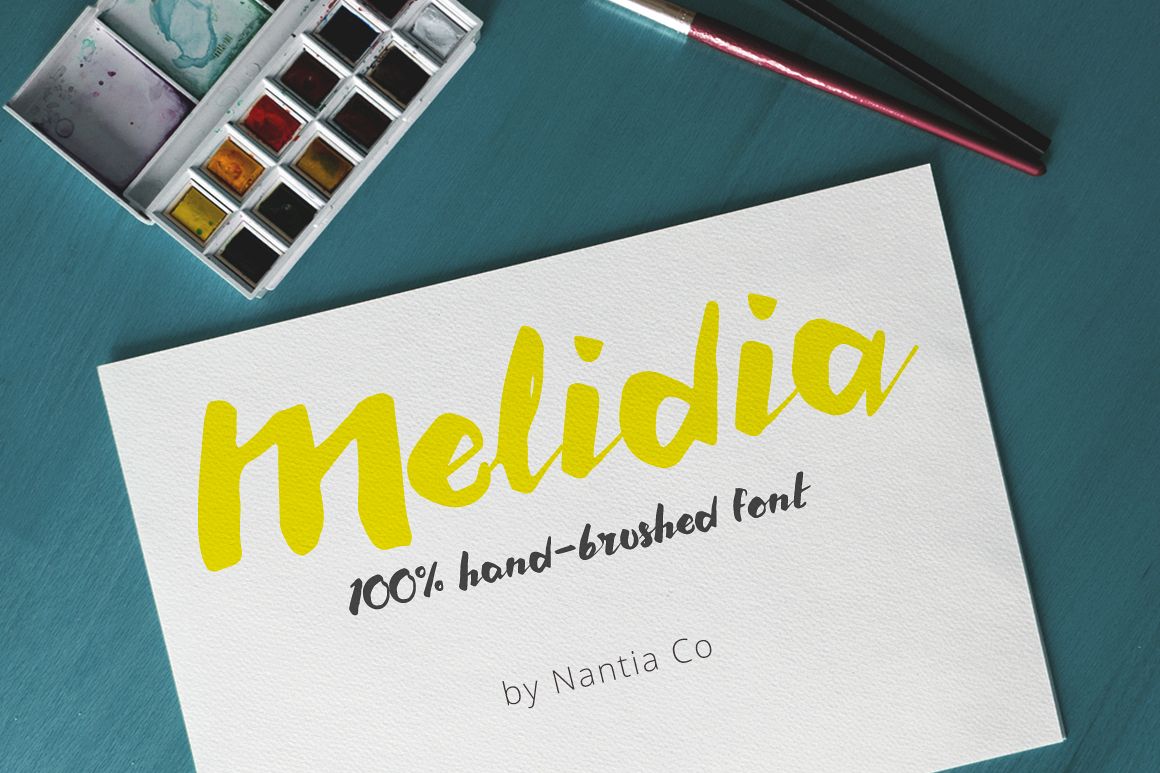
HandBrushed Greek, Cyrillic Typeface, Melidia Font
HandBrushed Greek, Cyrillic Typeface, Melidia FontThis is HandBrushed Typeface Melidia Font!My first encounter with brush lettering that has turned into a lovely bold font. I really loved the process of hand lettering with ink and I am so pleased how it developed into a lovely font. Melidia Font it's a multilingual lettering font with Greek (of course), Cyrillic and Extended Latin characters and diacritics. The style of the font is perfect for your modern graphic design needs. For all the typography lovers, this typeface is a must-have.
Also, Melidia Font is the ideal typeface for the food industry, for food branding, for restaurant menus and packaging. Additionally, you can use Melidia Font for a lovely wedding and baby shower invitation design. Especially if you are looking for a font for Instagram quote posts or any other social media content, this typeface is for you!
Melidia Font includes:
• Extended Latin character set,
• Cyrillic character set,
• Greek character set,
• punctuation marks,
• diacritics for multilingual support and
• numbers.
Finally, Melidia Font supports over 20 languages: Albanian, Basque, Bosnian, Breton, Catalan, Chamorro, Chichewa_nyanja, Croatian, Danish, Dutch, English, Estonian, Finnish, French, Frisian, Galician, Greek, Russian, Hungarian, Italian, Lithuanian, Malagasy, Maltese, Norwegian, Polish, Portuguese, Serbian, Slovenian, Spanish, Swedish, Turkish, Welsh